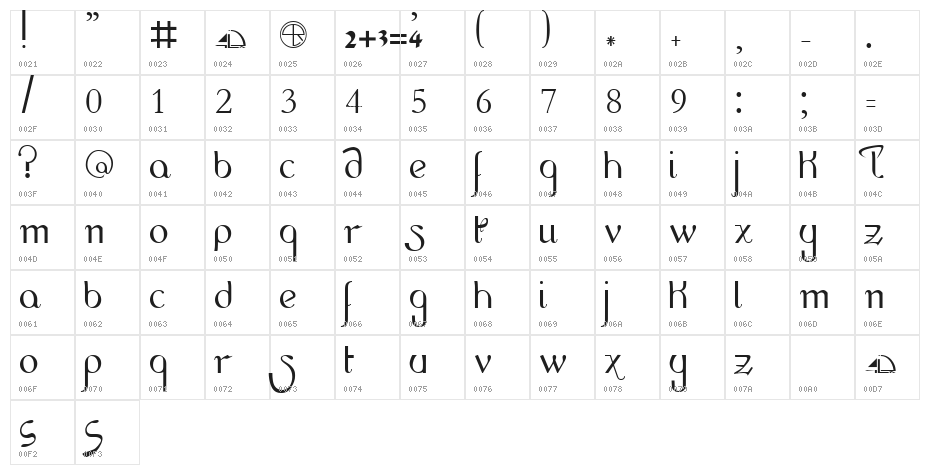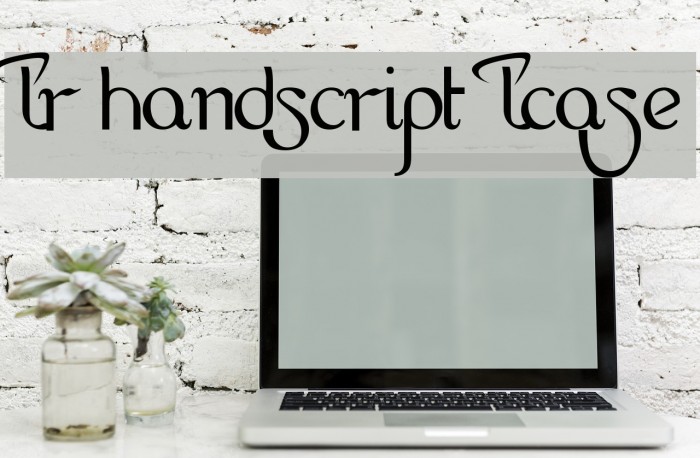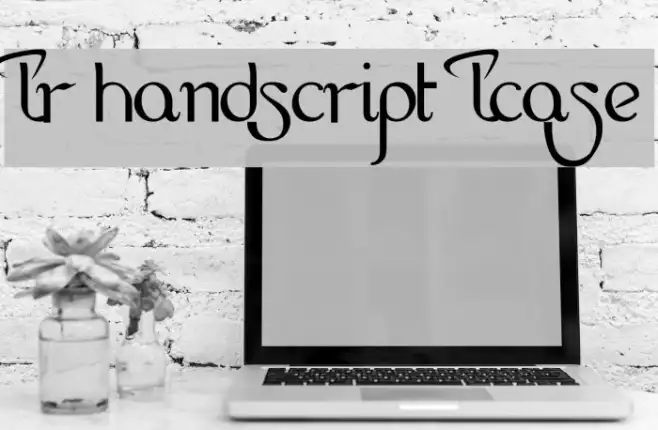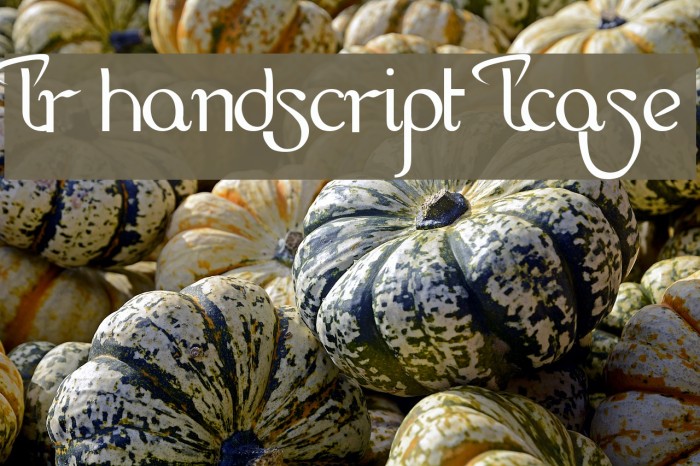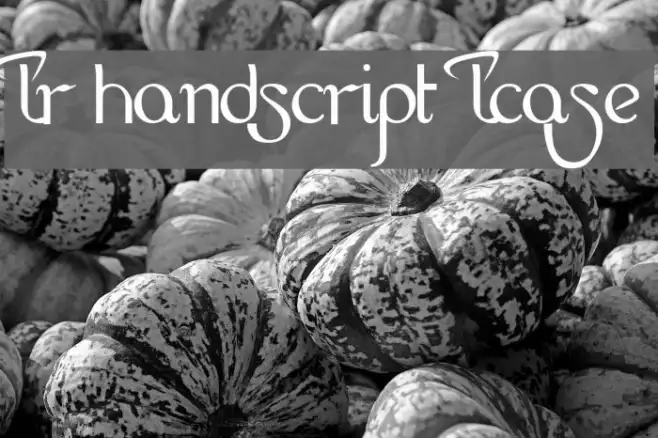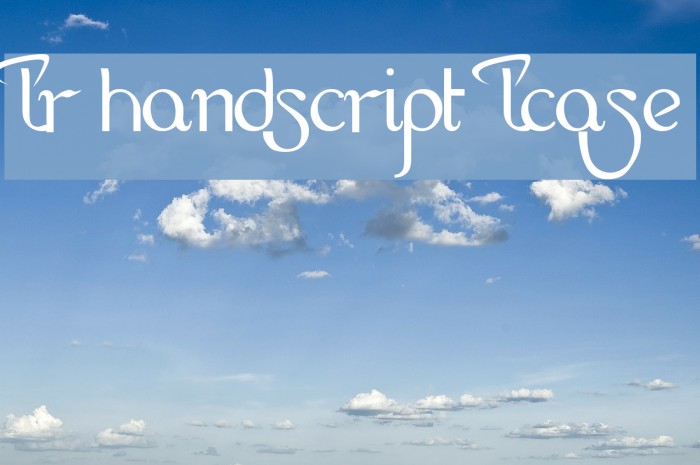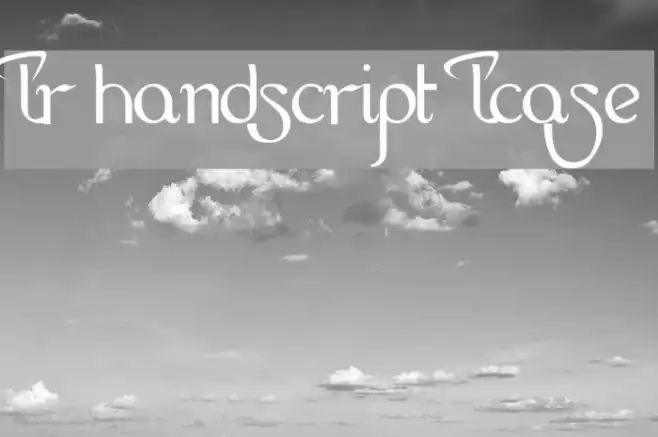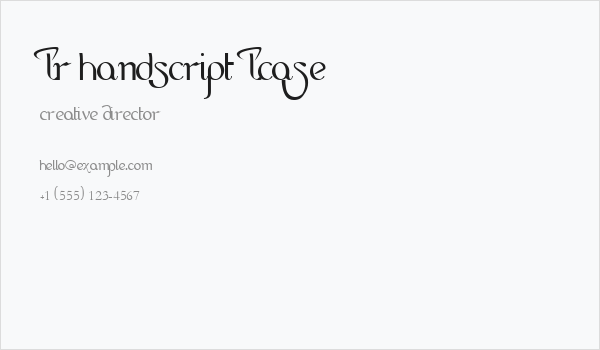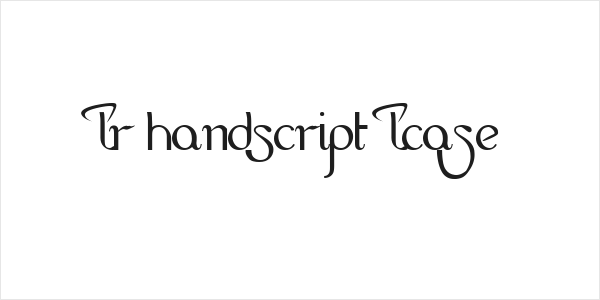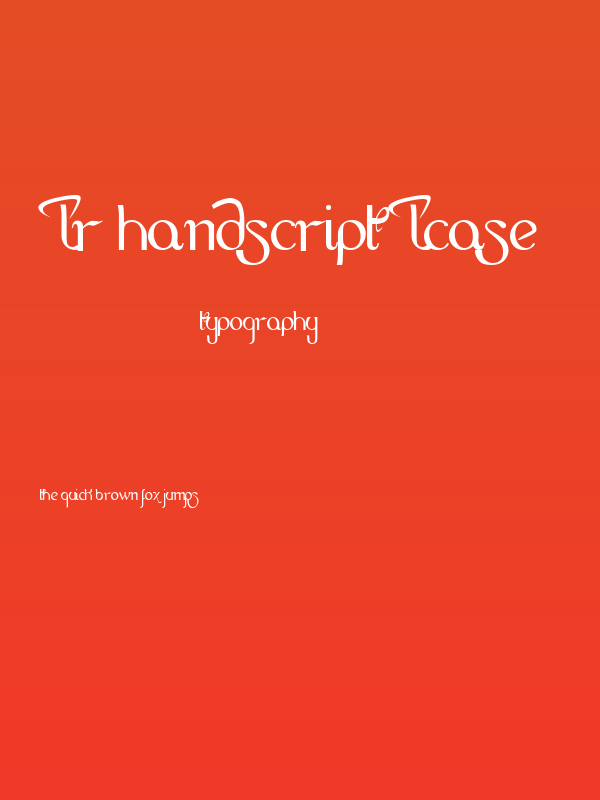
LR HandScript LCase Font
LR HandScript LCase Description
This font features a unique blend of modern and classic elements, characterized by its elegant, flowing script style. The letters are crafted with a distinct flair, incorporating both sharp angles and smooth curves, which give it a sophisticated yet approachable appearance. The lowercase letters have an artistic quality, with some characters extending below the baseline, adding a dynamic and lively feel. The numerals are consistent with the overall style, maintaining the same balance of curves and angles. Special characters are creatively designed, enhancing the font's versatility. This font is ideal for projects that require a touch of elegance and creativity.
| Proposed Projects | Ideal for wedding invitations, branding, logo design, and artistic projects requiring a sophisticated touch. |